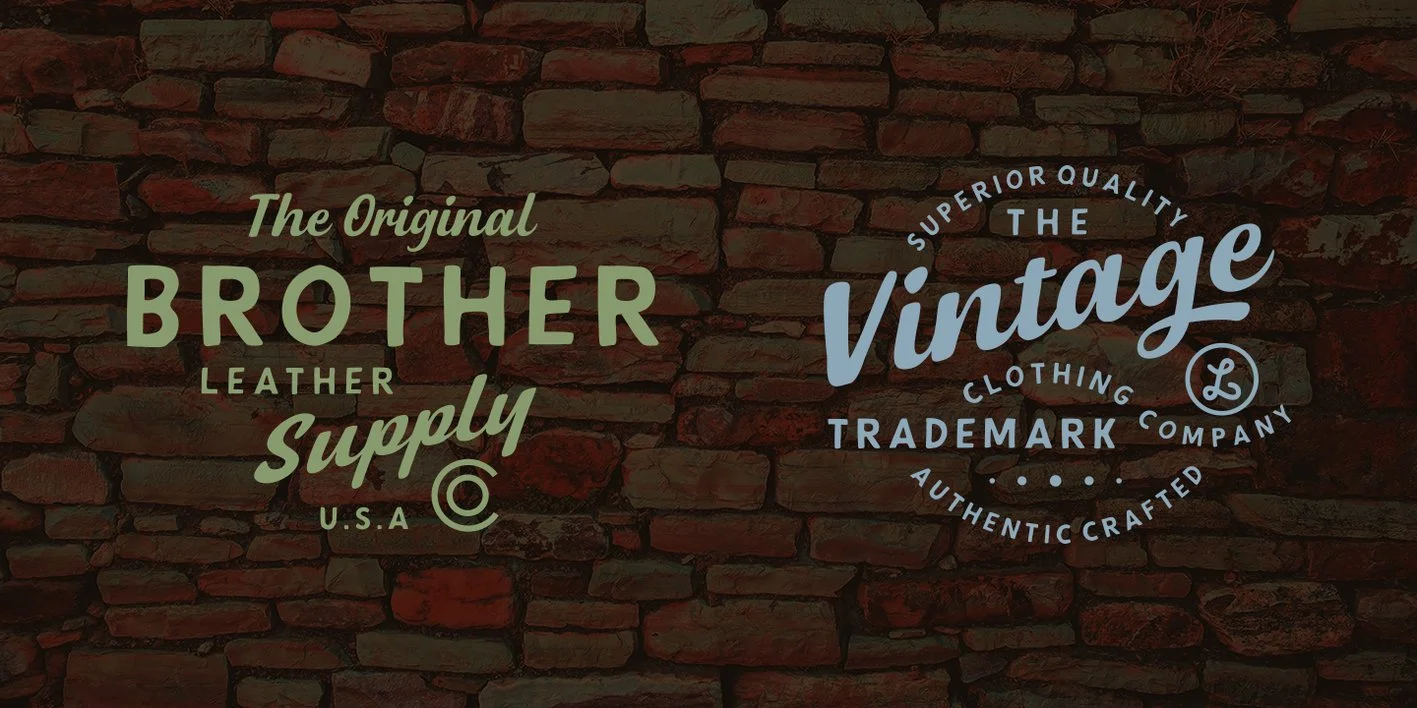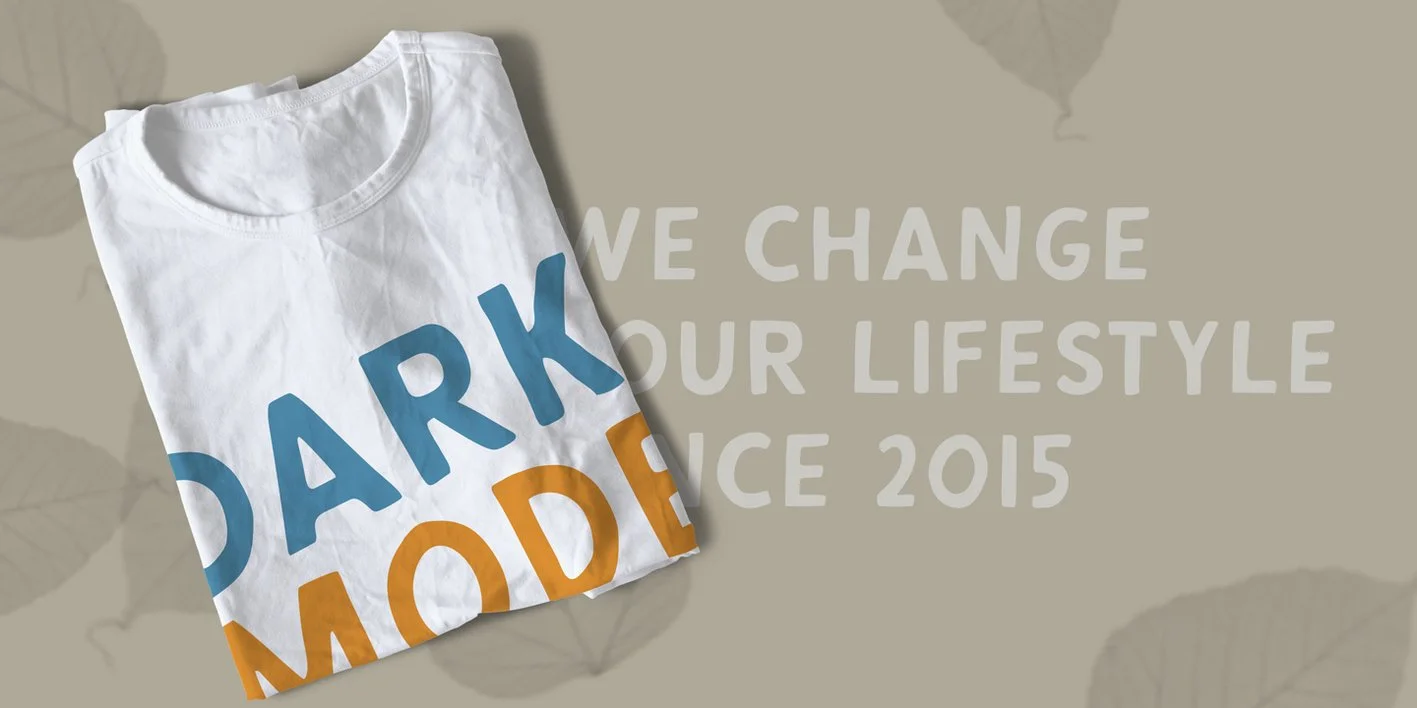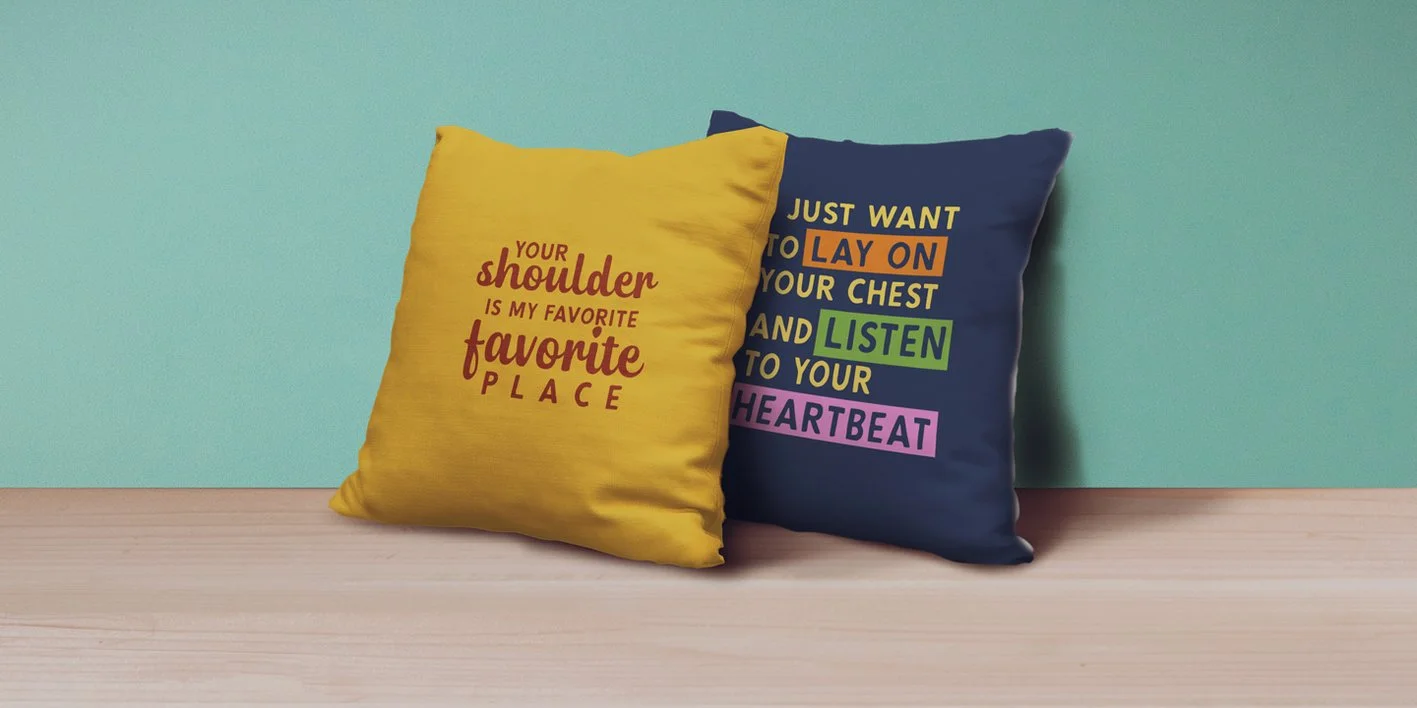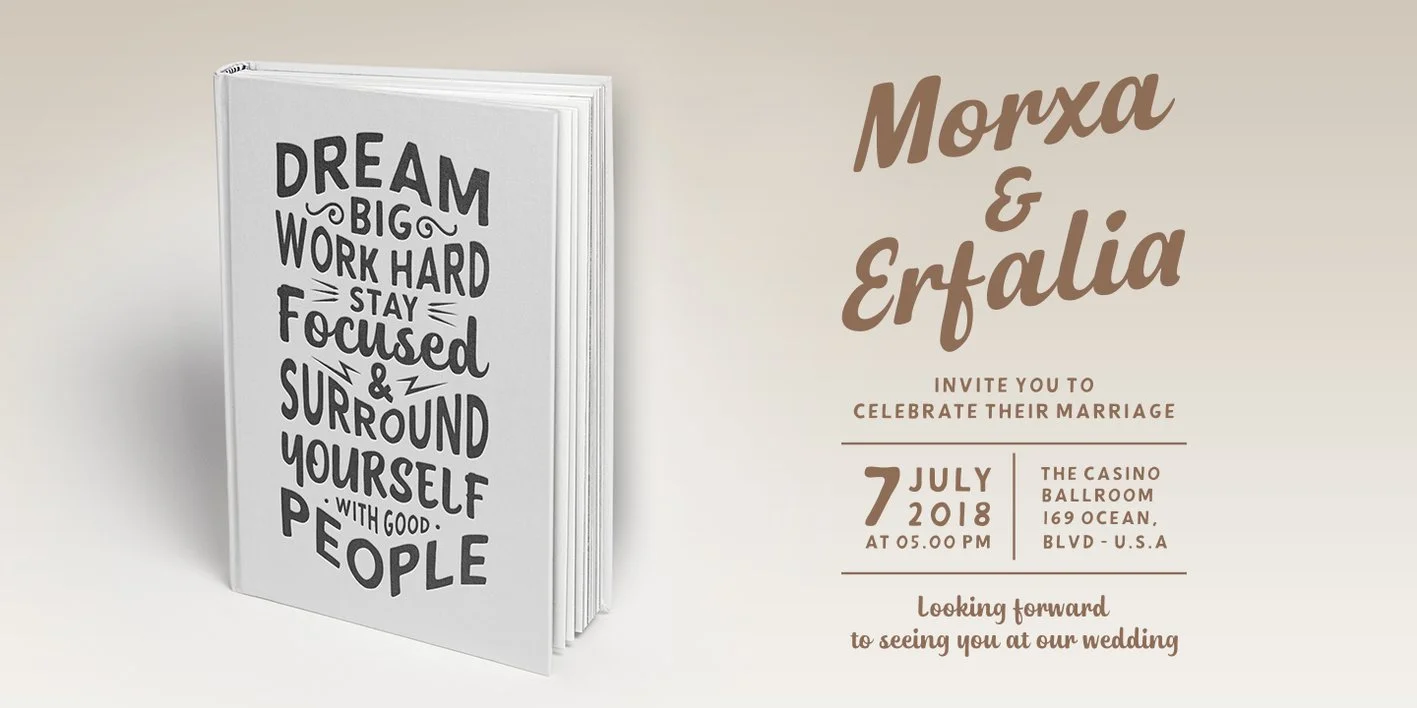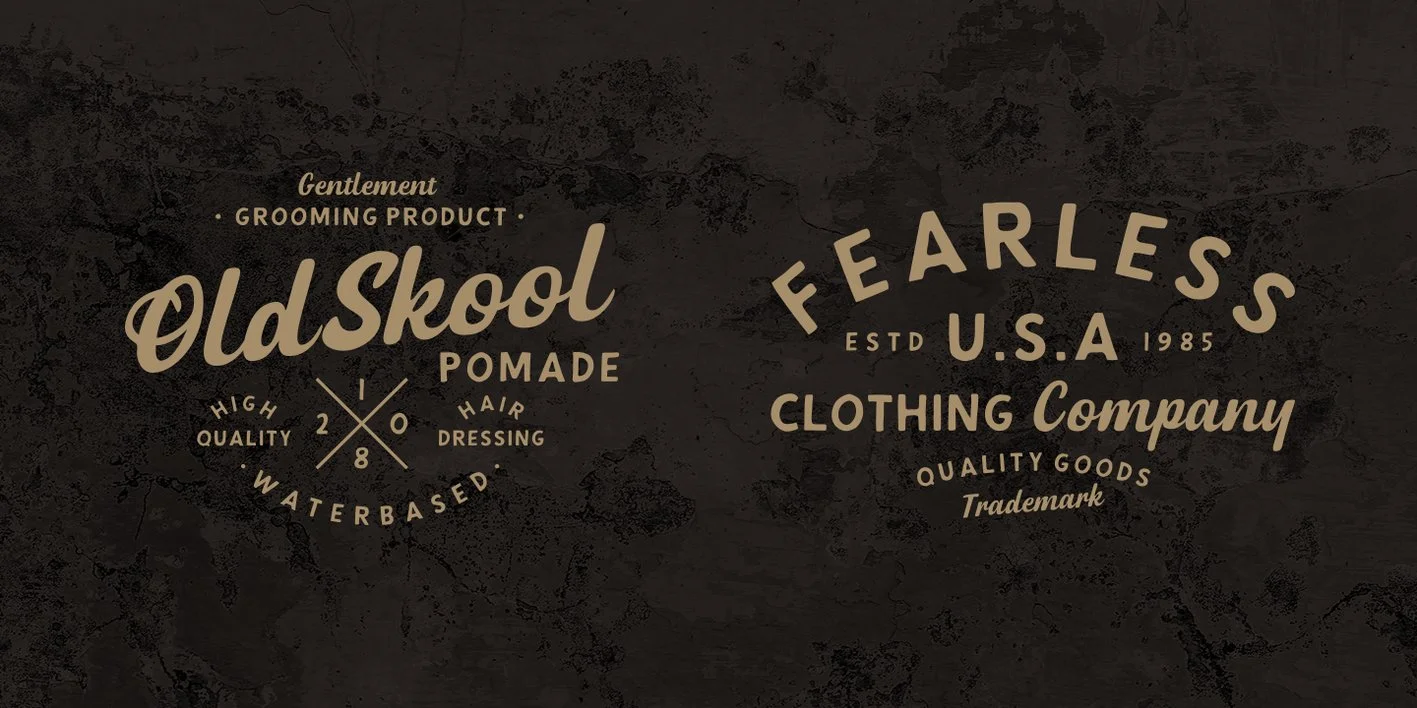
Dephion Font
Few typefaces manage to balance controlled contrast that rewards close inspection with genuine day-to-day practicality. Dephion is one of them. The typeface brings a versatile sensibility to a broad range of creative disciplines, with a confident voice that adapts to diverse briefs that holds up whether the work is print-first or screen-first.
In practice, Dephion proves particularly effective for packaging design, product labels, environmental graphics, editorial layouts, brand identity systems. Designers reaching for it find that the type decisions feel resolved rather than laboured — a useful quality when client timelines are tight.
The range of applications extends to poster creation, web design, logo design, advertising campaigns. That breadth is deliberate: the proportions and spacing were stress-tested across a wide range of mock briefs before the typeface was finalised.
Pairing Dephion with a contrasting serif or a neutral grotesque gives mixed-format layouts a clear visual grammar without requiring constant size adjustments to establish hierarchy.
Art directors commissioning type-led campaigns find Dephion a reliable choice for projects that demand both personality and restraint. The design avoids the self-conscious quirkiness that dates quickly, settling instead for considered distinctiveness that holds up over time.